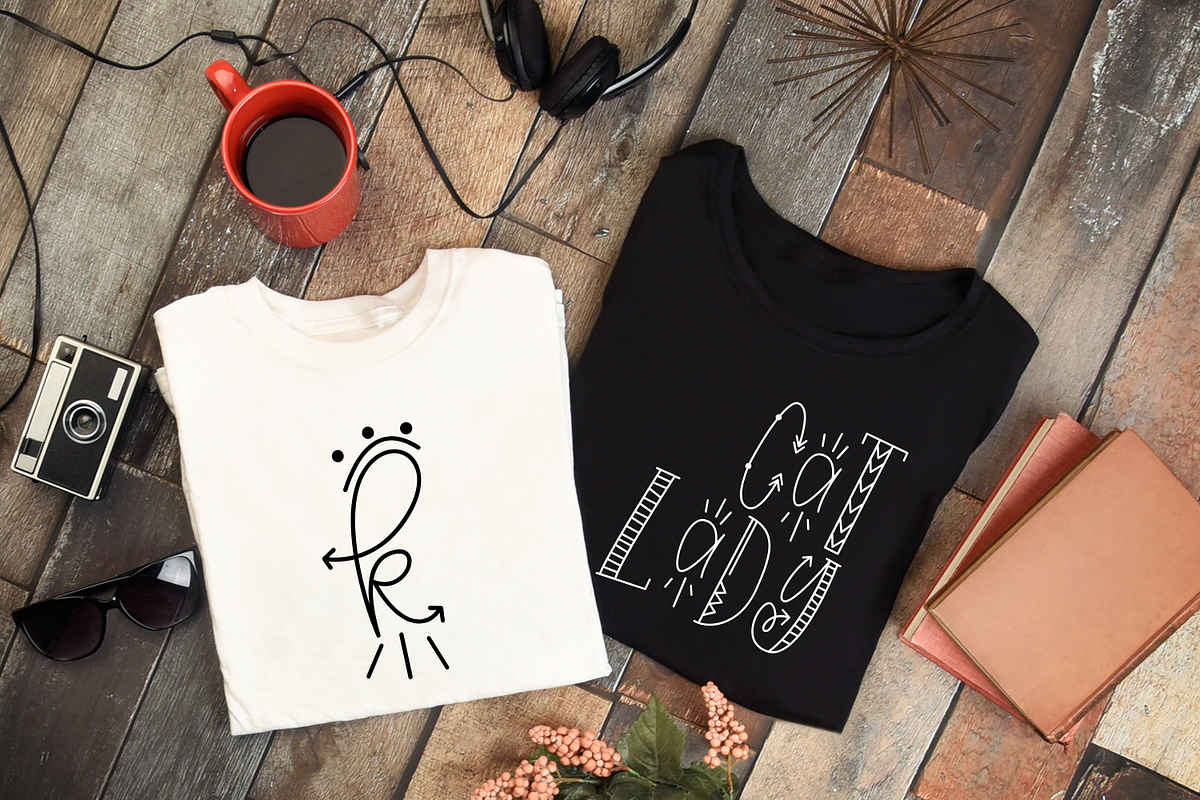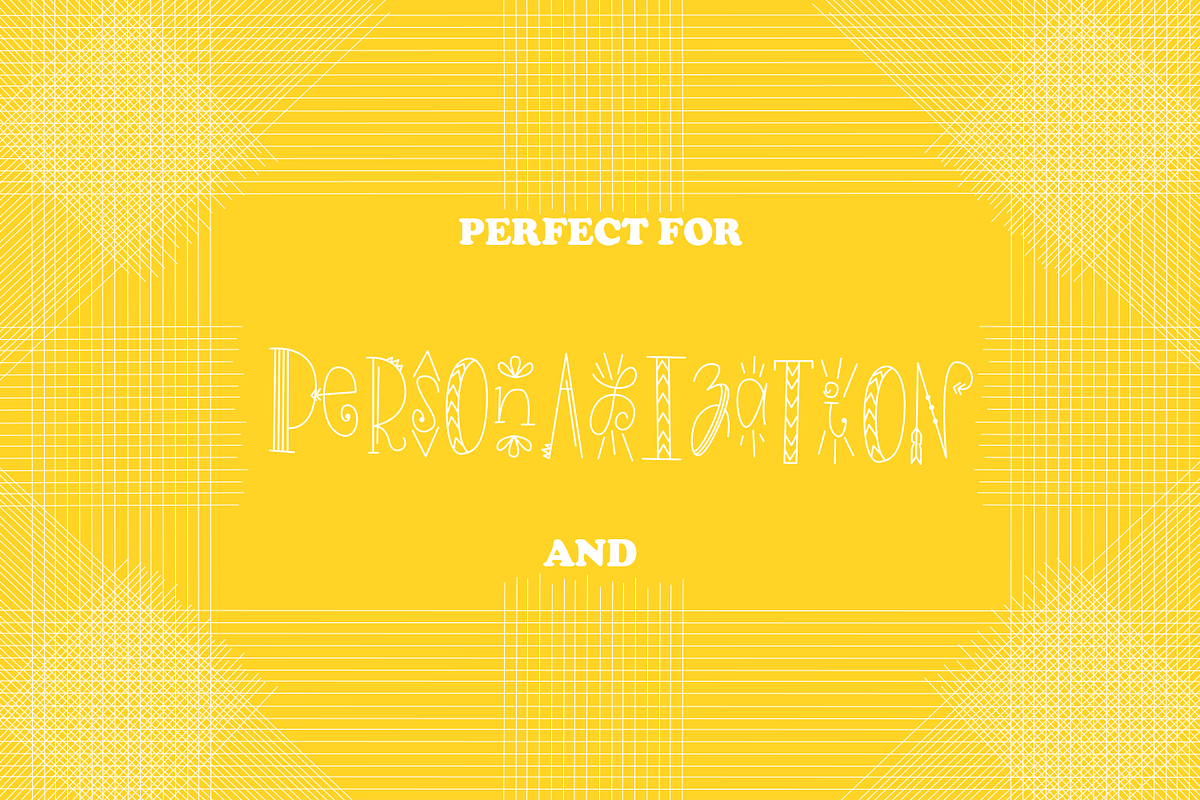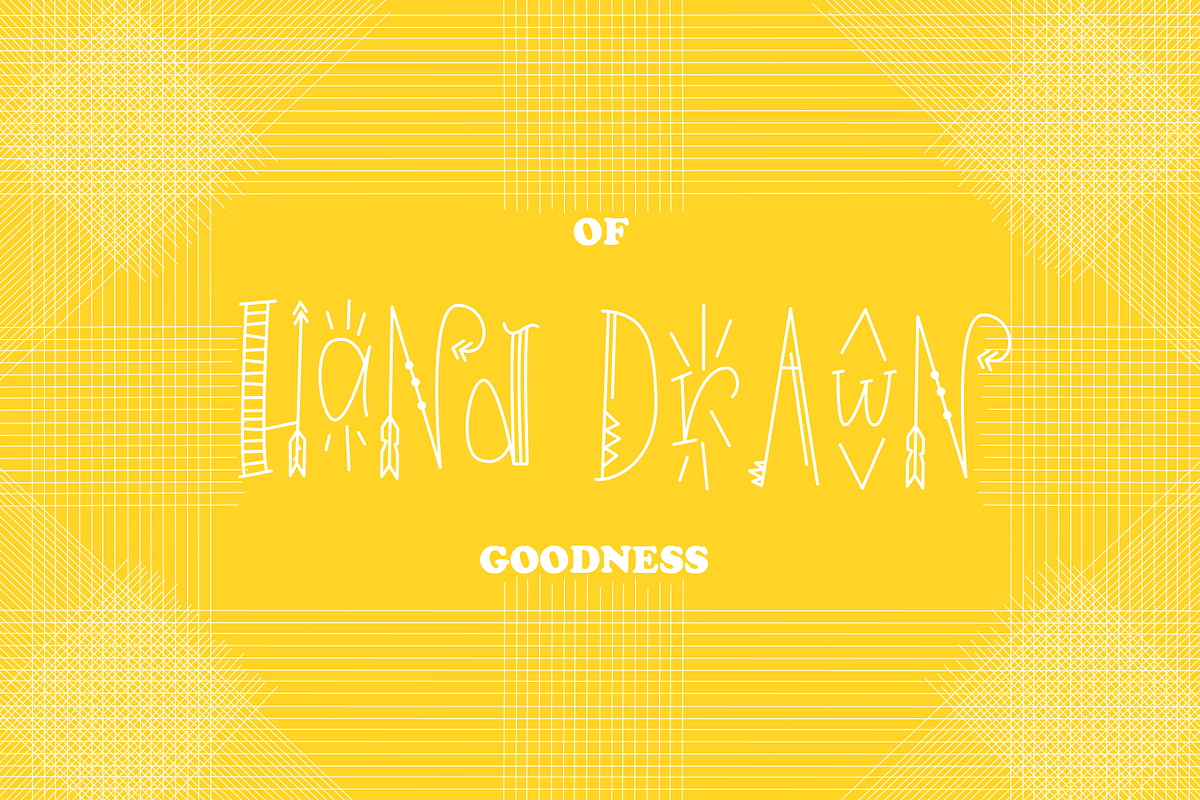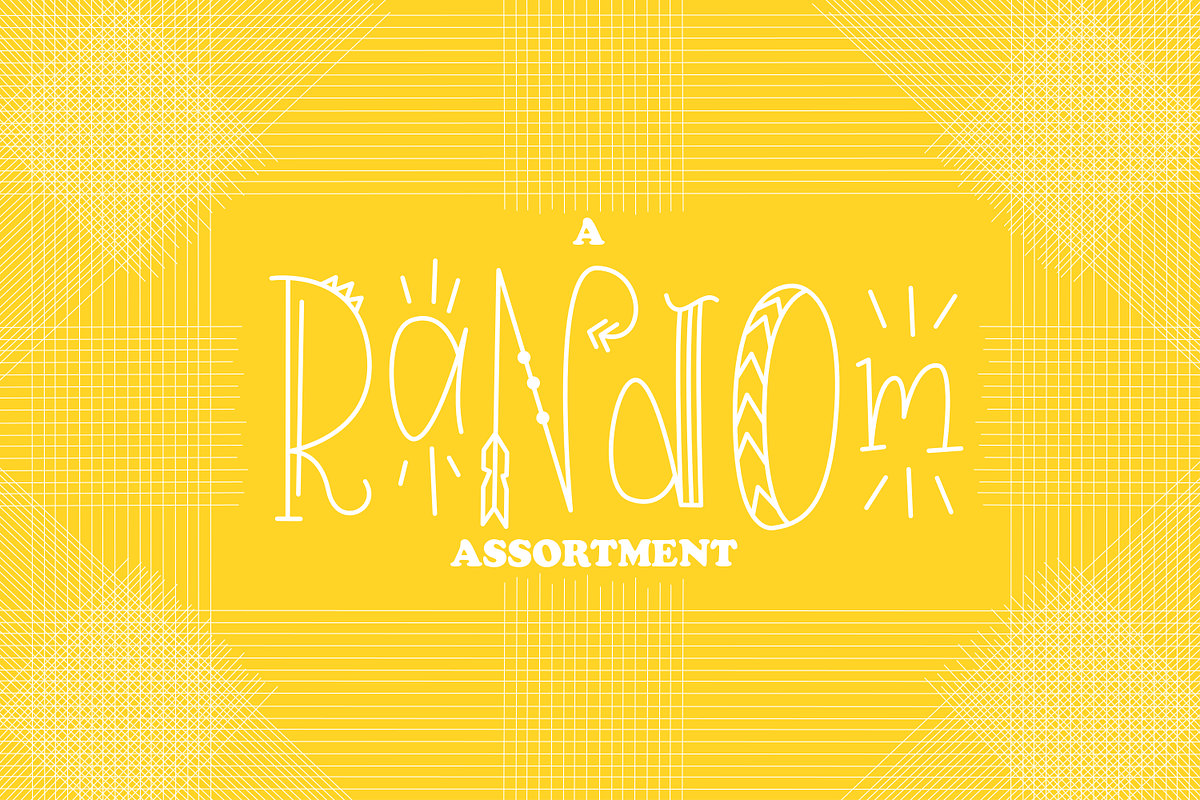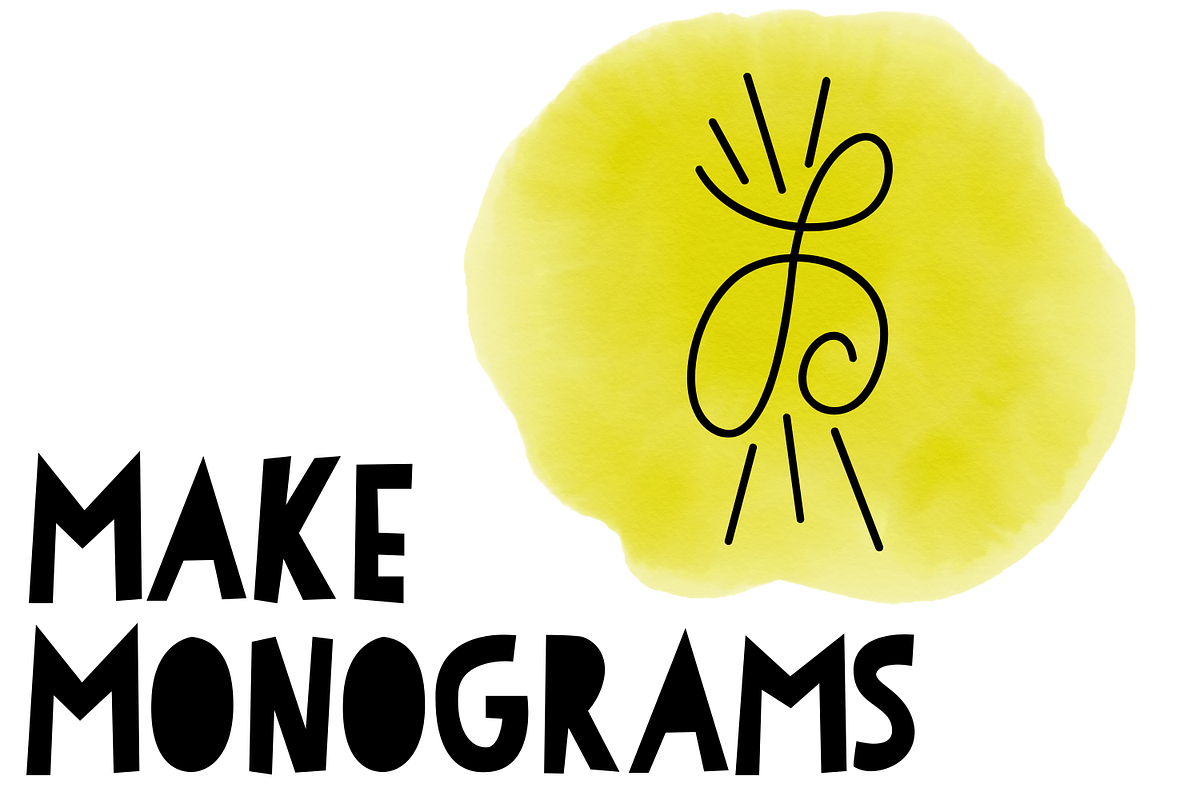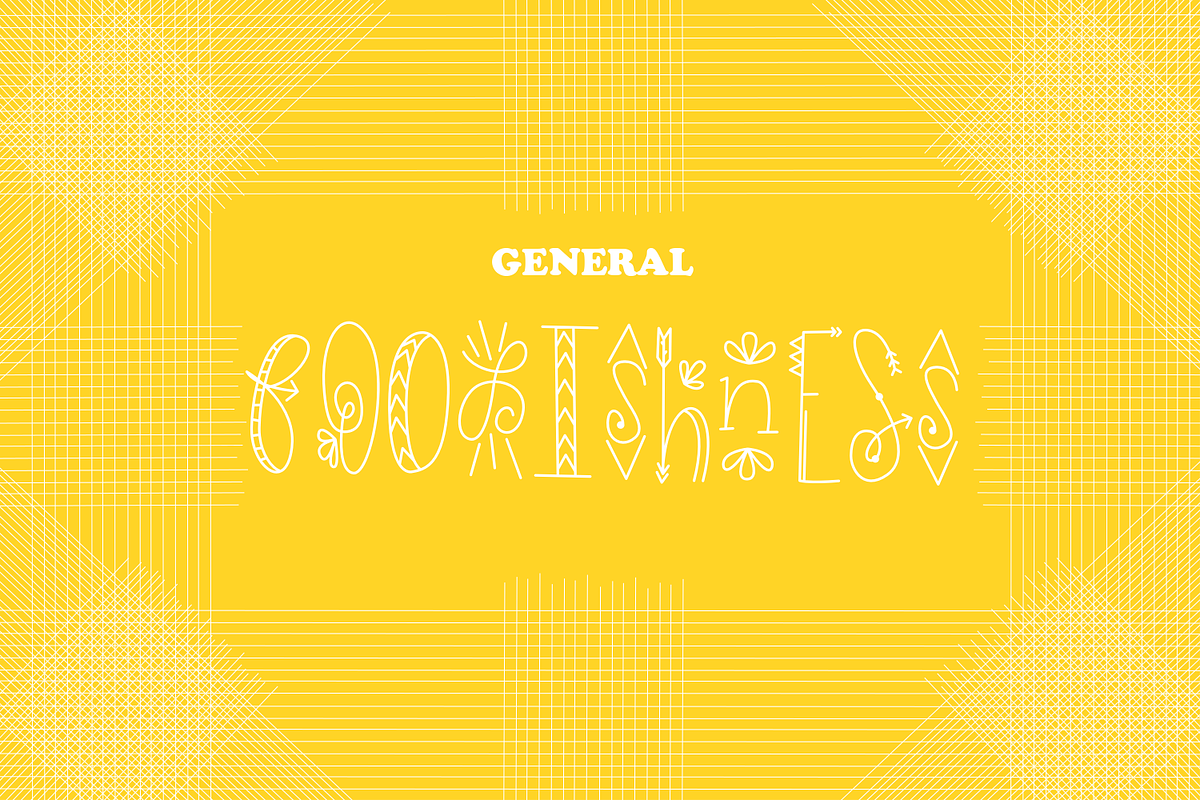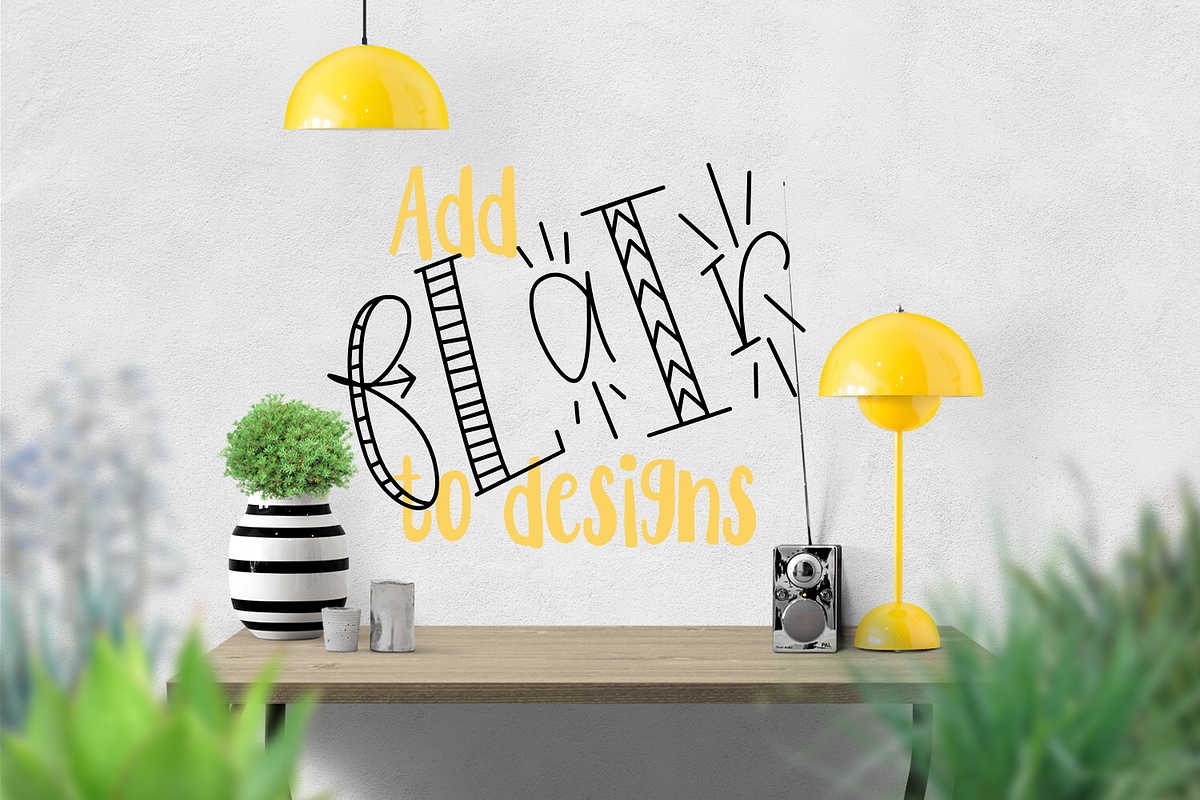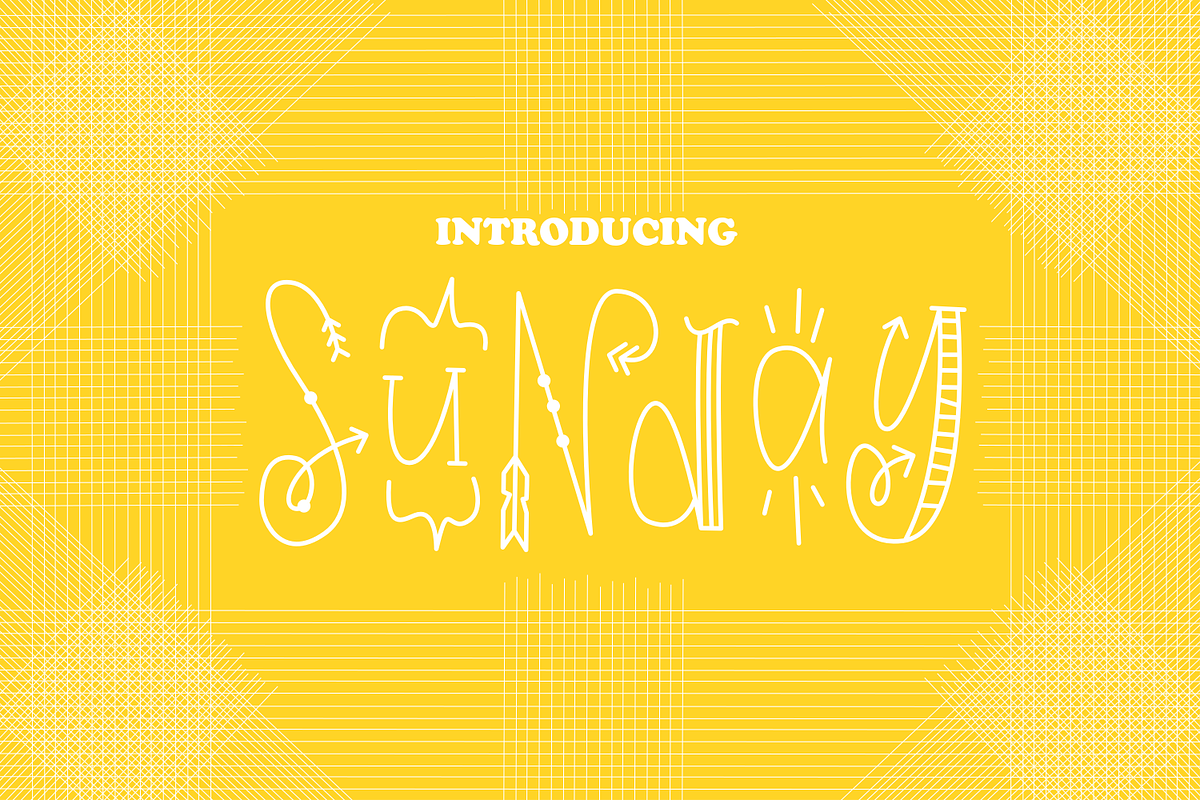
Sunday - A Quirky Font!
Why Sunday - A Quirky Font! is worth a look
Sunday - A Quirky Font! by CraftyLittleNodes fits naturally into Branding, posters, packaging, typography.